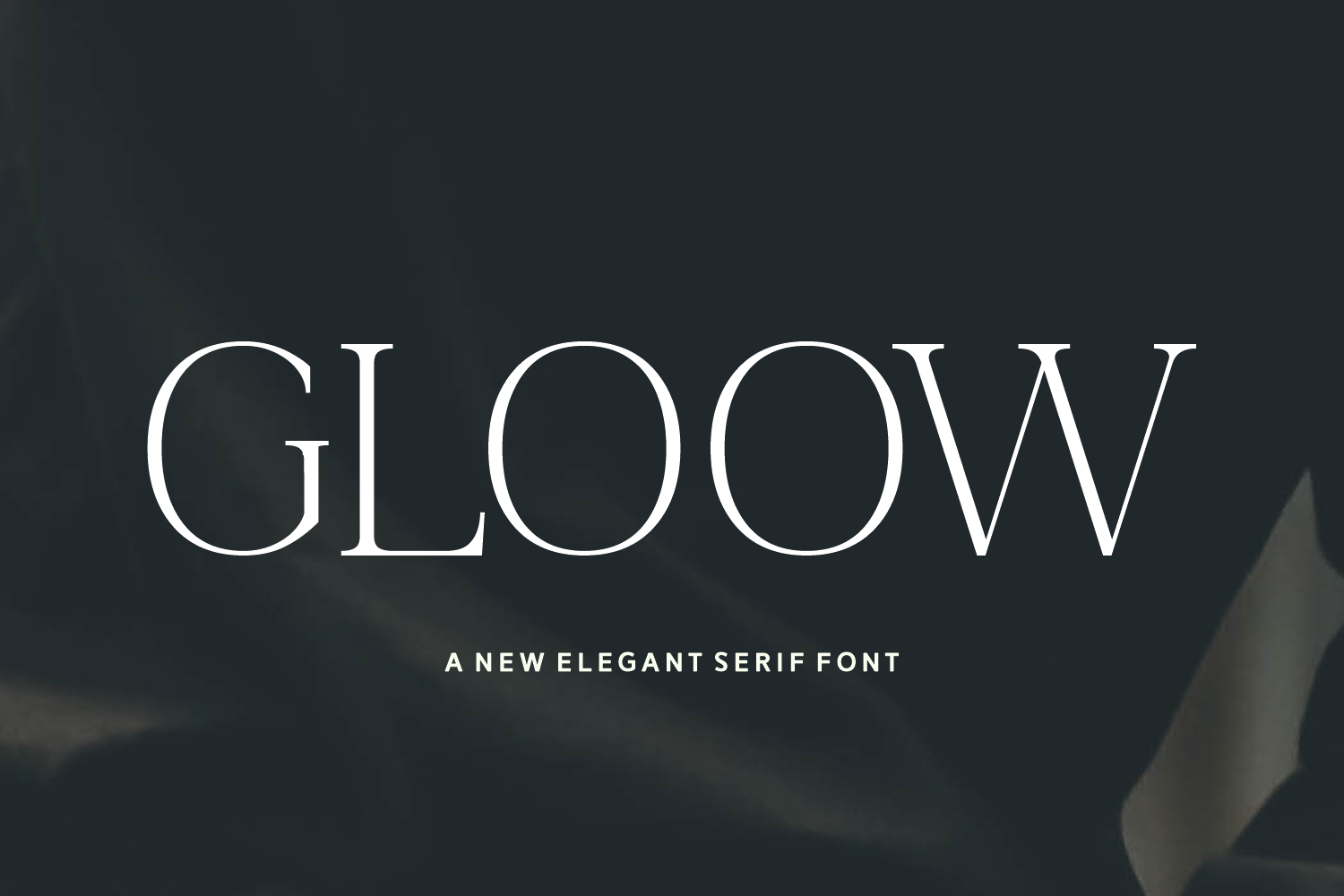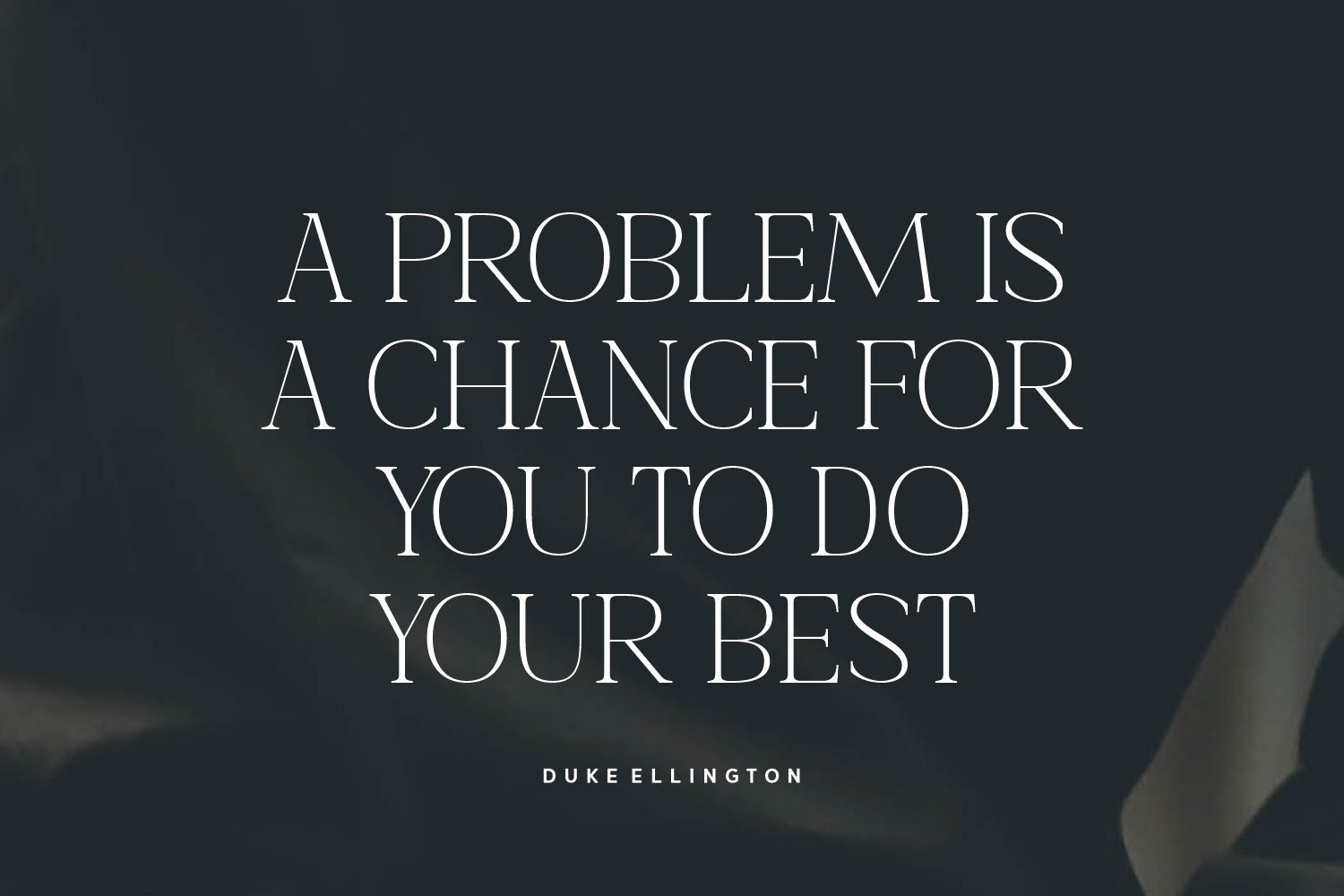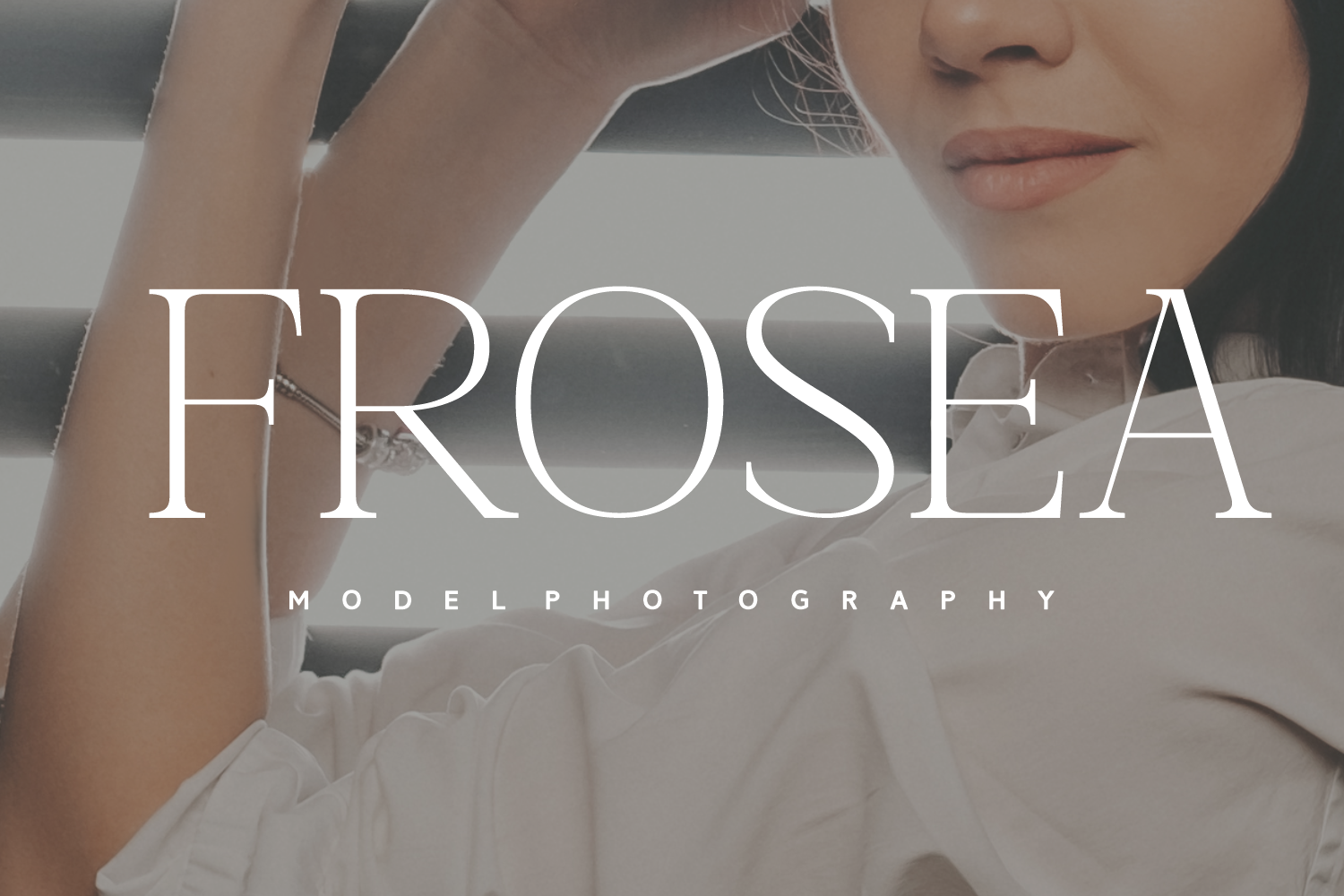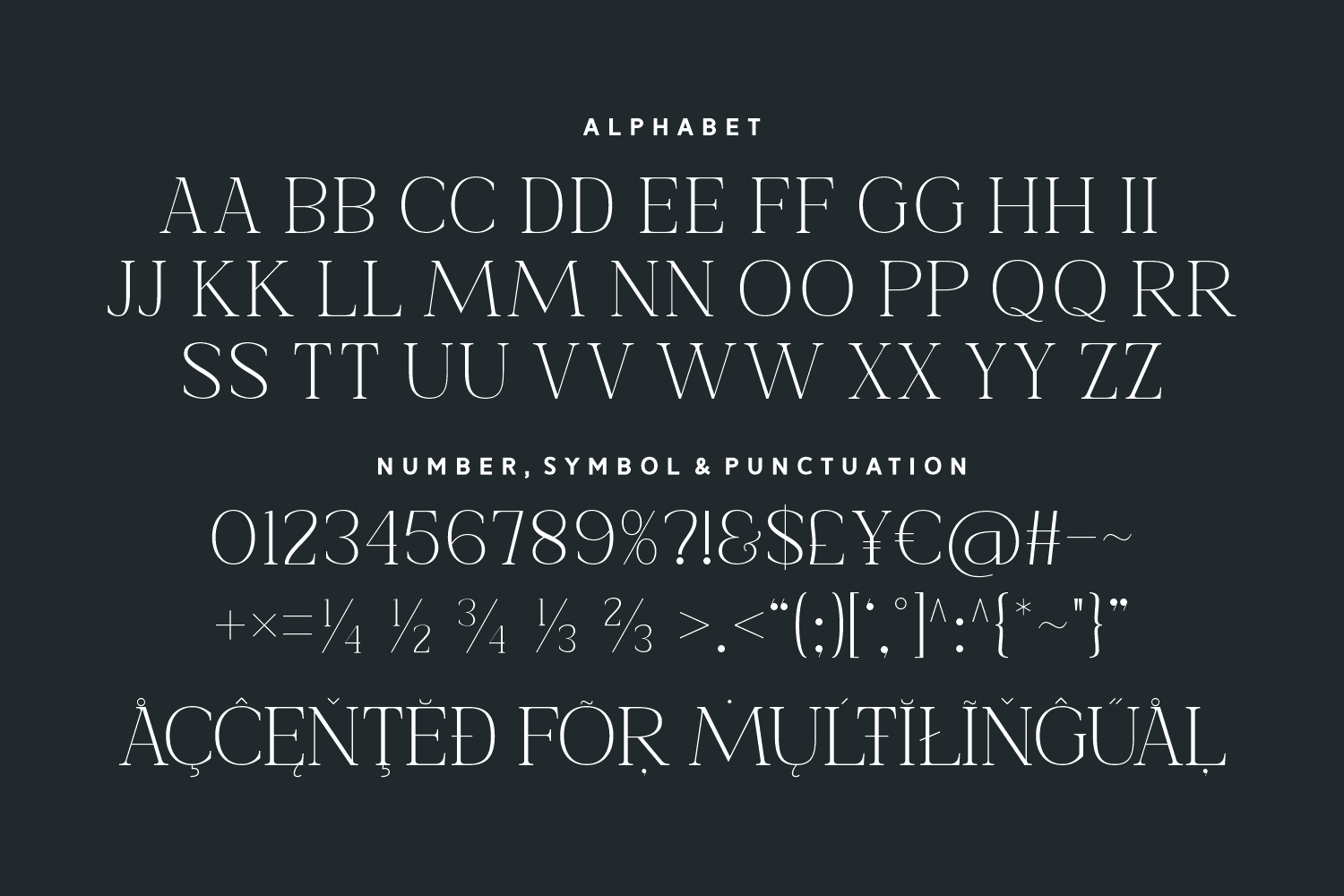
Gloow is a high-contrast, elegant serif font that radiates sophistication and modern luxury. The clean letterforms and spacious layout make it ideal for both digital and print, while its multilingual support ensures global versatility. If you're looking for a timeless font that balances boldness with delicacy, Gloow is your perfect match.